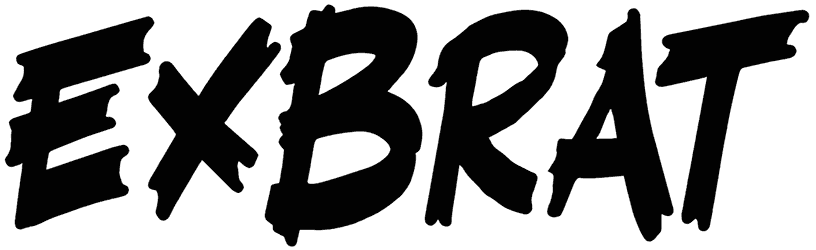
Exbrat Font
Exbrat is a bold and sophisticated script brush font that fuses the finesse of a script font with the confidence of a brush stroke. Exbrat stands apart from the crowd and lends a touch of refinement to any design project, even though it has no lowercase characters.